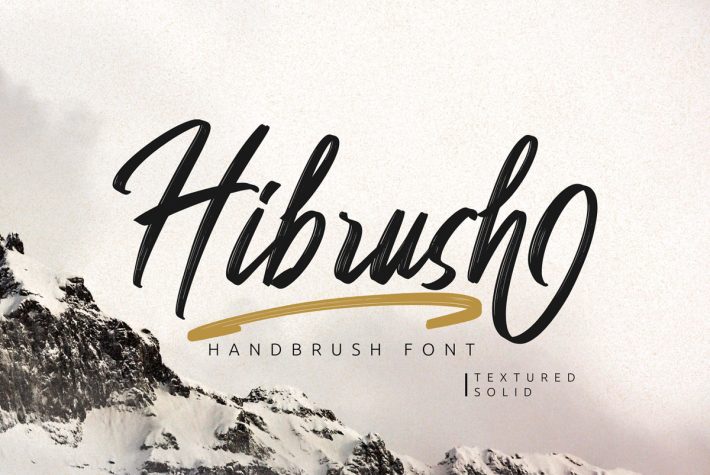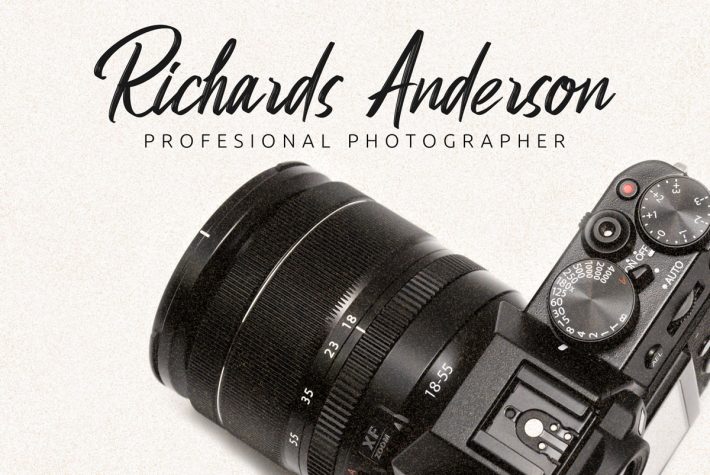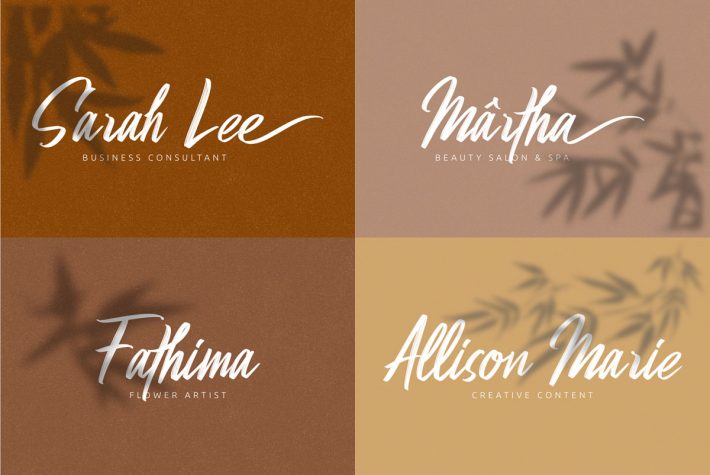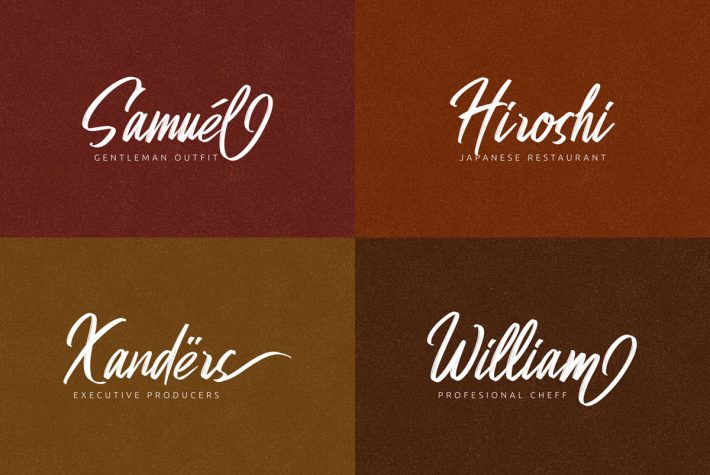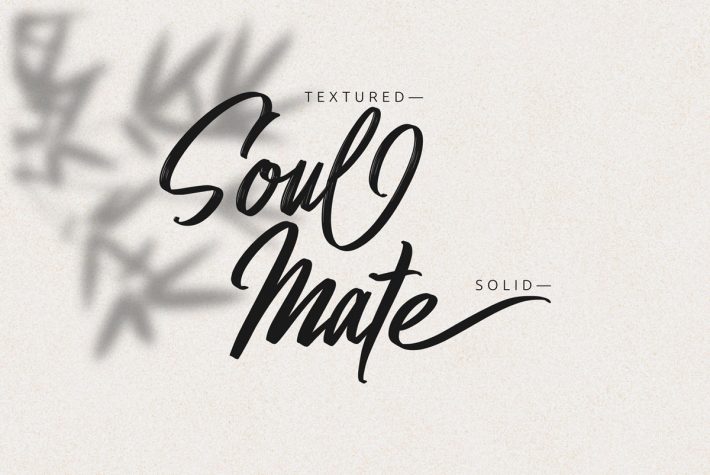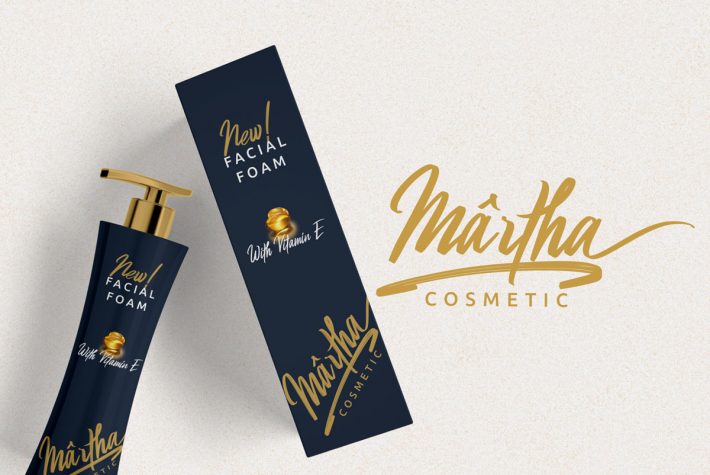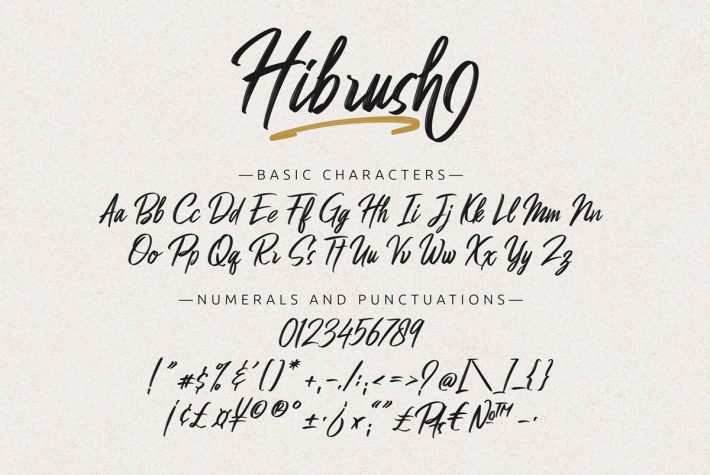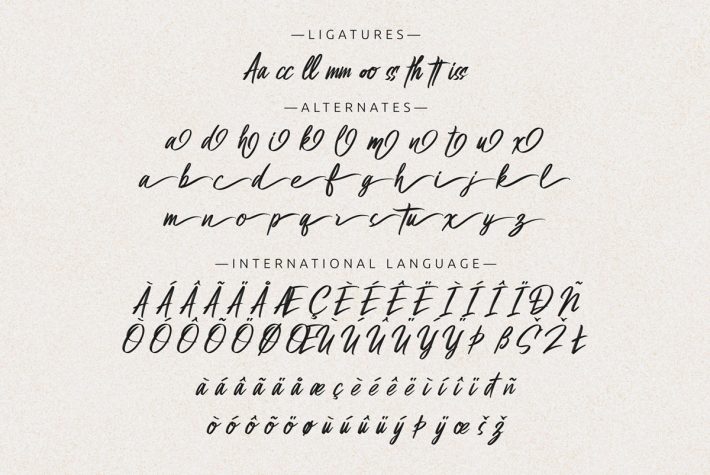
Hibrush is a brush font comes with 2 styles, regular brush texture and solid. This typeface is perfect for logos, T-shirt, Hoodie, apparel, product packaging design and so on.
It has Uppercase and lowercase characters, supports international languages, numerals, punctuation, ligatures, stylistic alternates and stylistic sets.This is accessible in the Adobe Illustrator Glyphs panel or under Stylistic Alternates in the Adobe Photoshop OpenType menu, Adobe InDesign, Corel Draw. It even work on Microsoft Word.